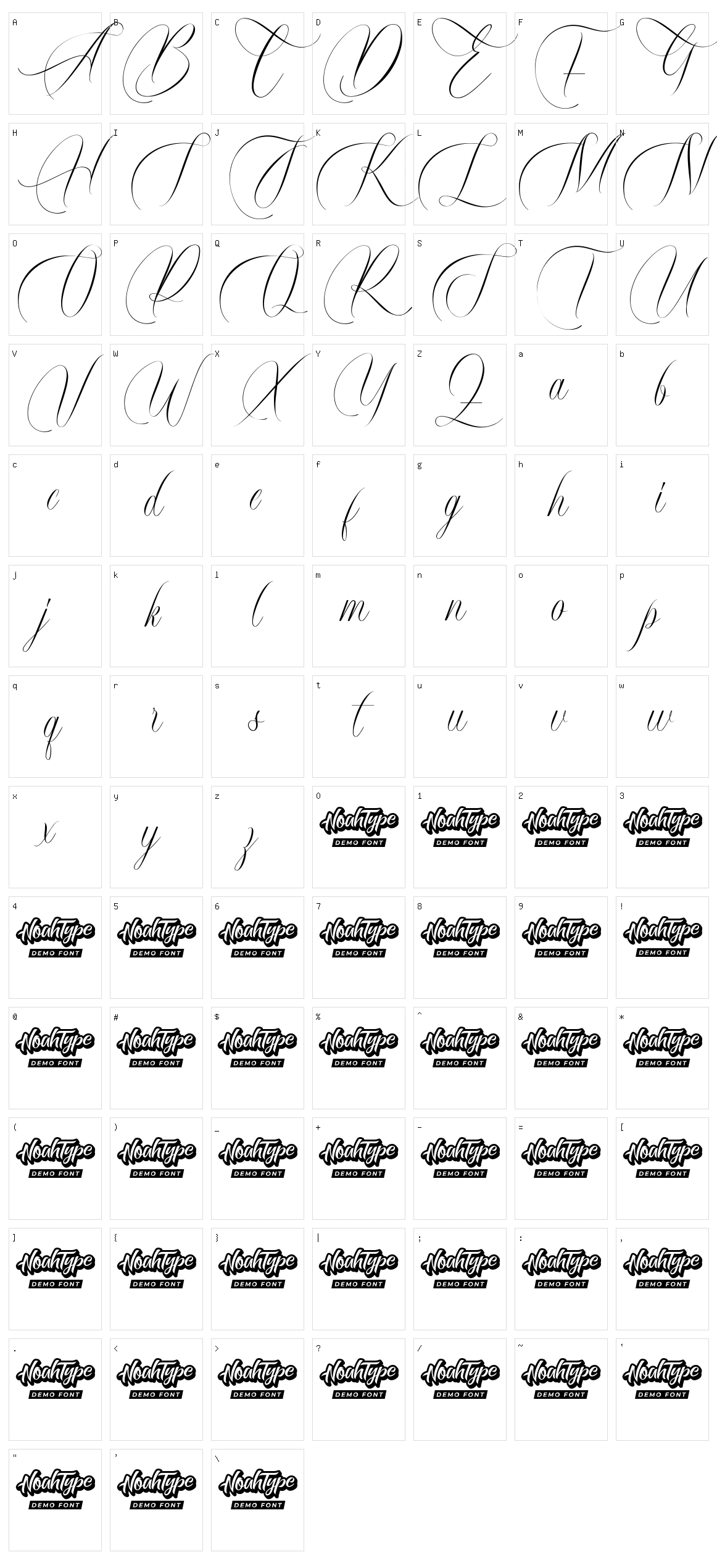
The free font Charles Mustafa is carefully designed by RaisProject, showcasing a thoughtful balance of creativity and usability and falls under the Script font style. When you download the ZIP file, it contains only 84.2 KB of font files, making it lightweight and quick to download. Please review the license details below to understand permitted usage and distribution rights. If license information is not available, we recommend using this font for personal projects only or contacting the author directly for commercial usage permissions.